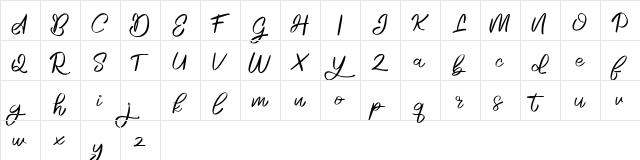
Rosela FREE Regular
Design Context for Rosela FREE Typeface
Rosela FREE is a composed and adaptable typeface that performs quietly and consistently across a wide range of design contexts.